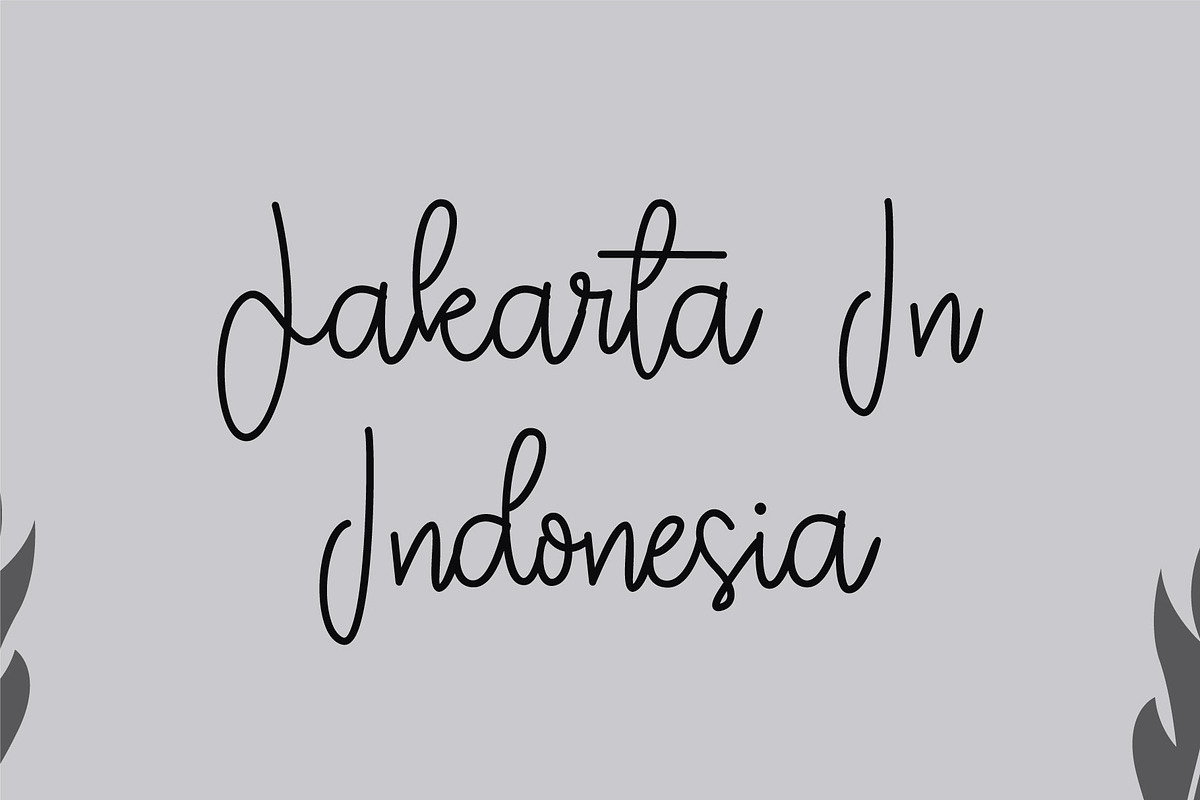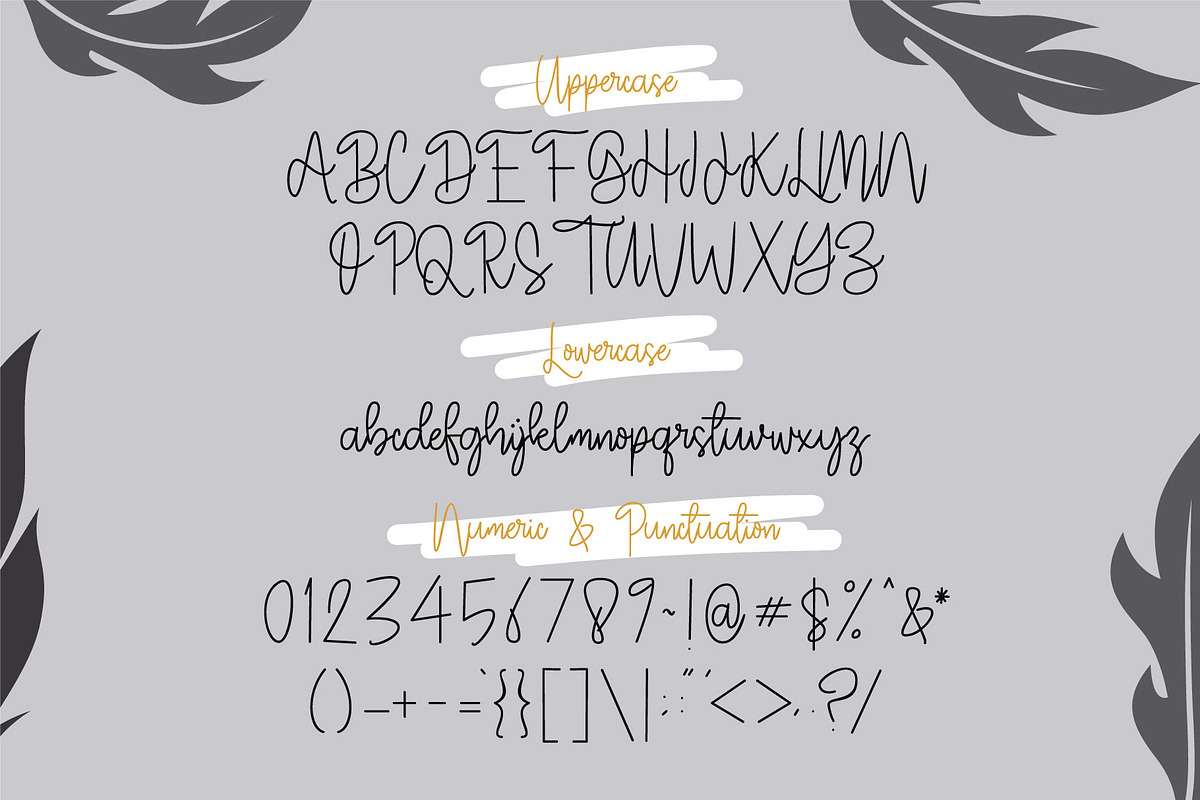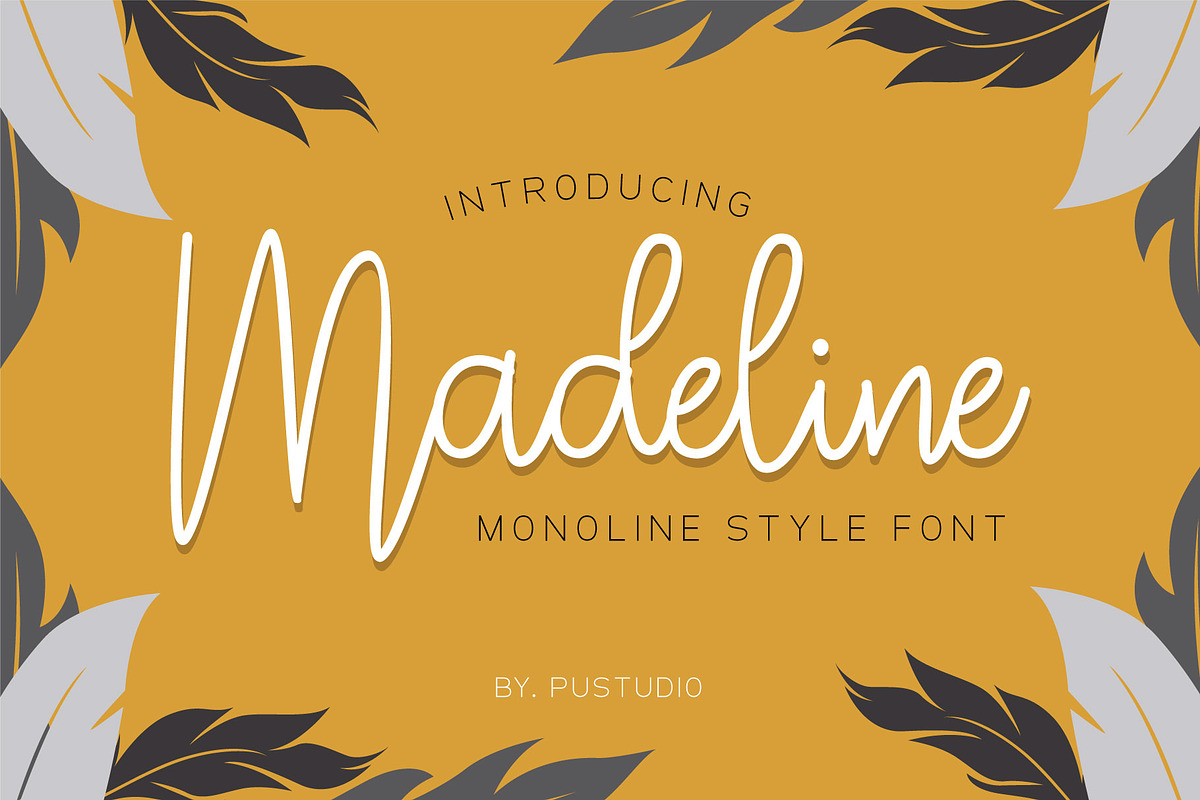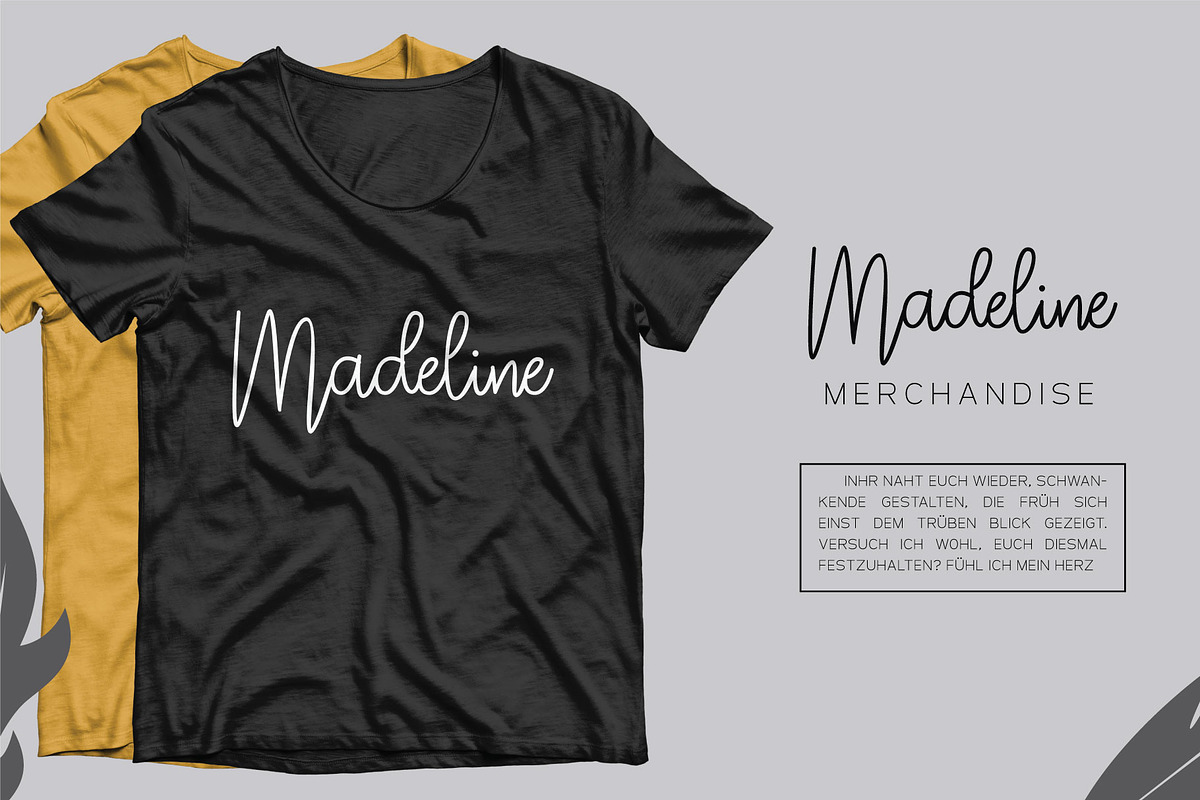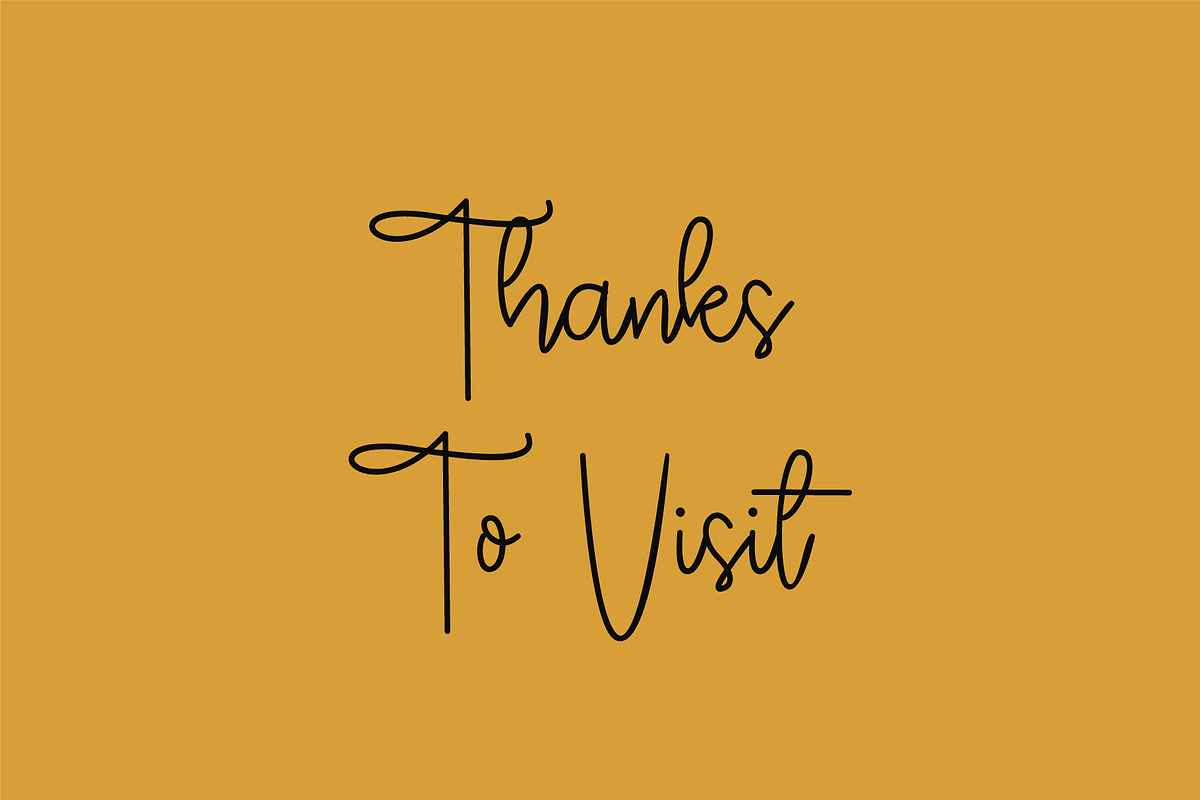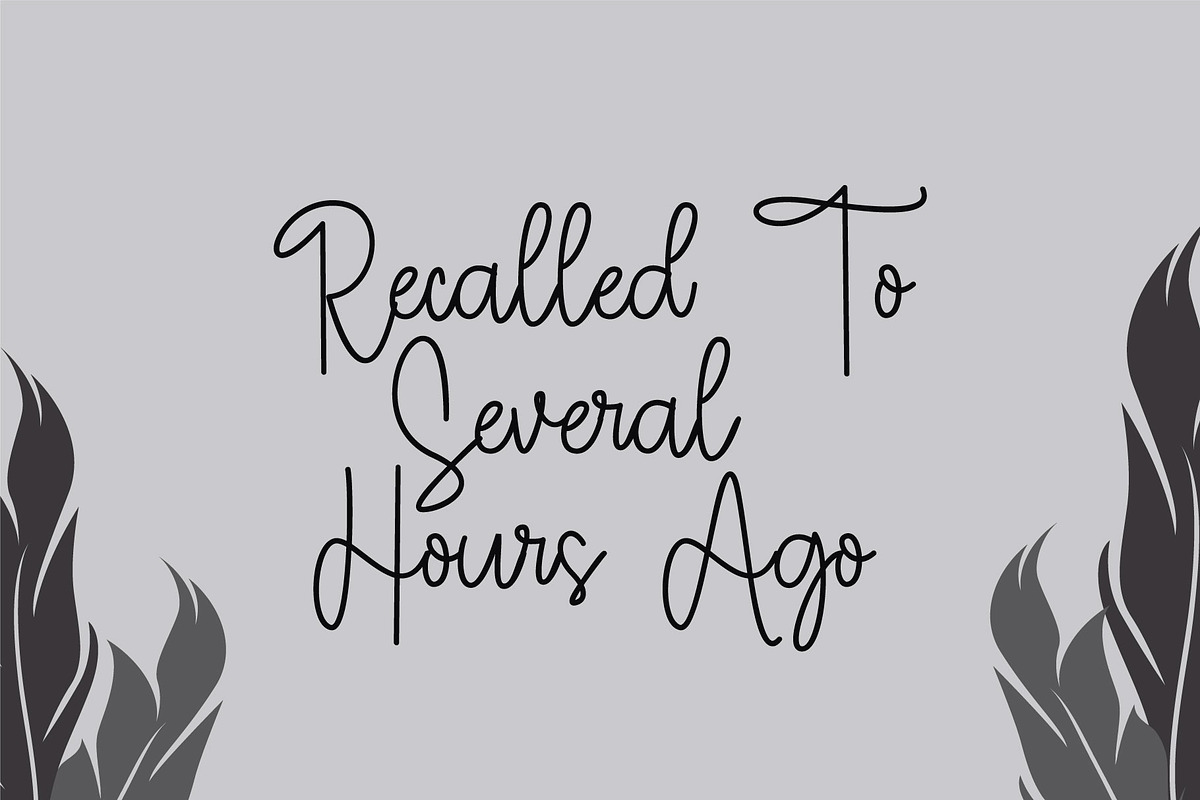
Madeline
Madeline is a lovely, stylish and thin lettered script font that exudes elegance and class. This font was particularly crafted for those who need a beautiful and refreshing look to their designs.